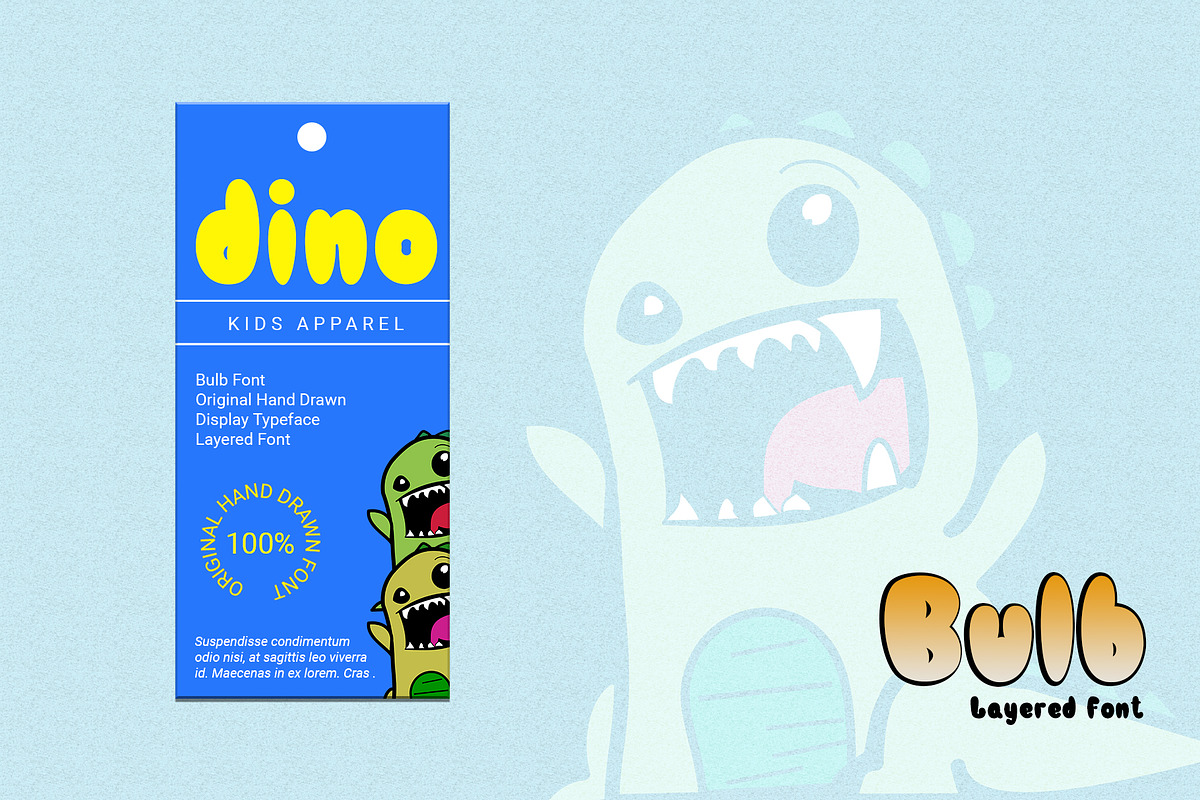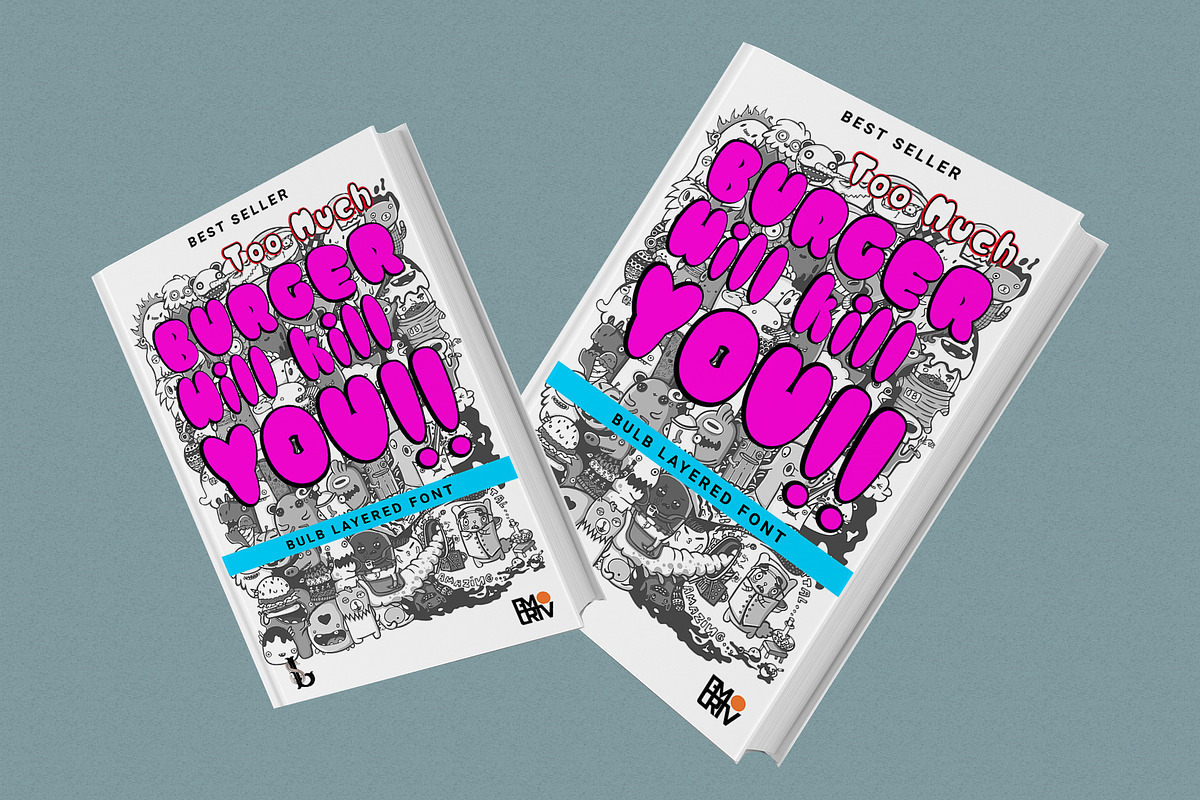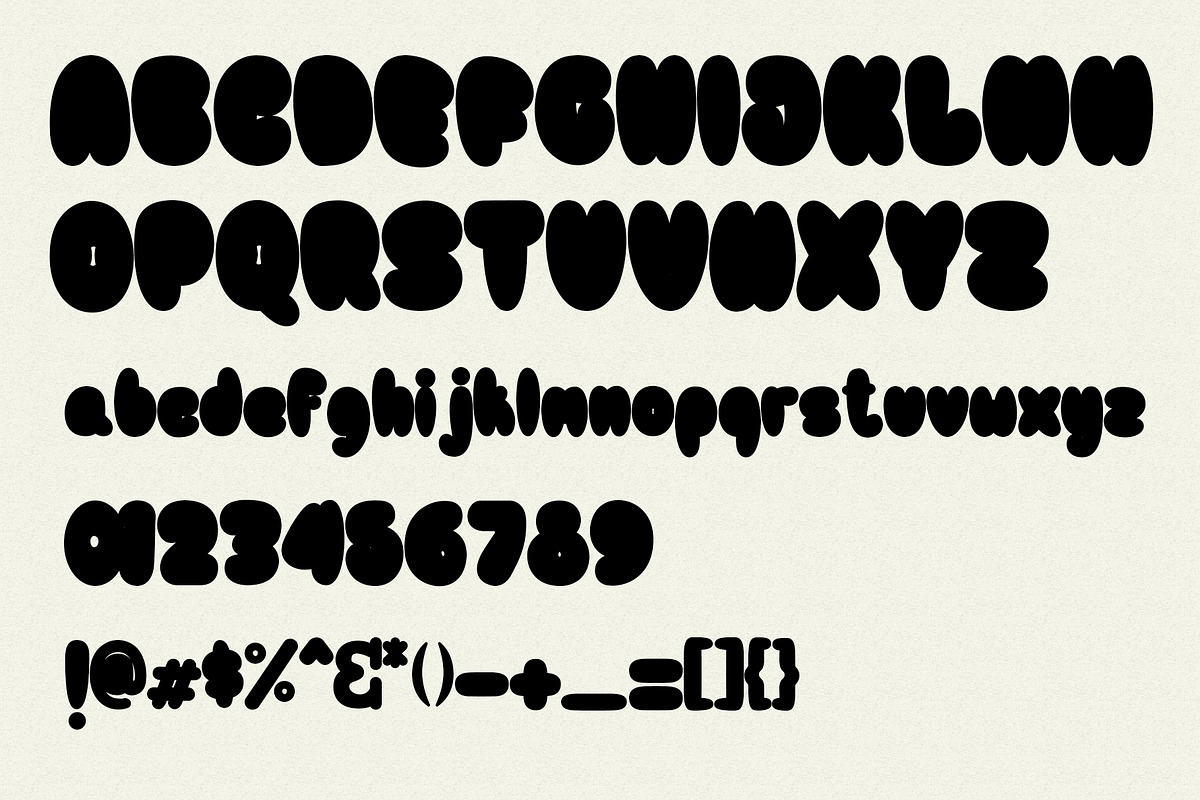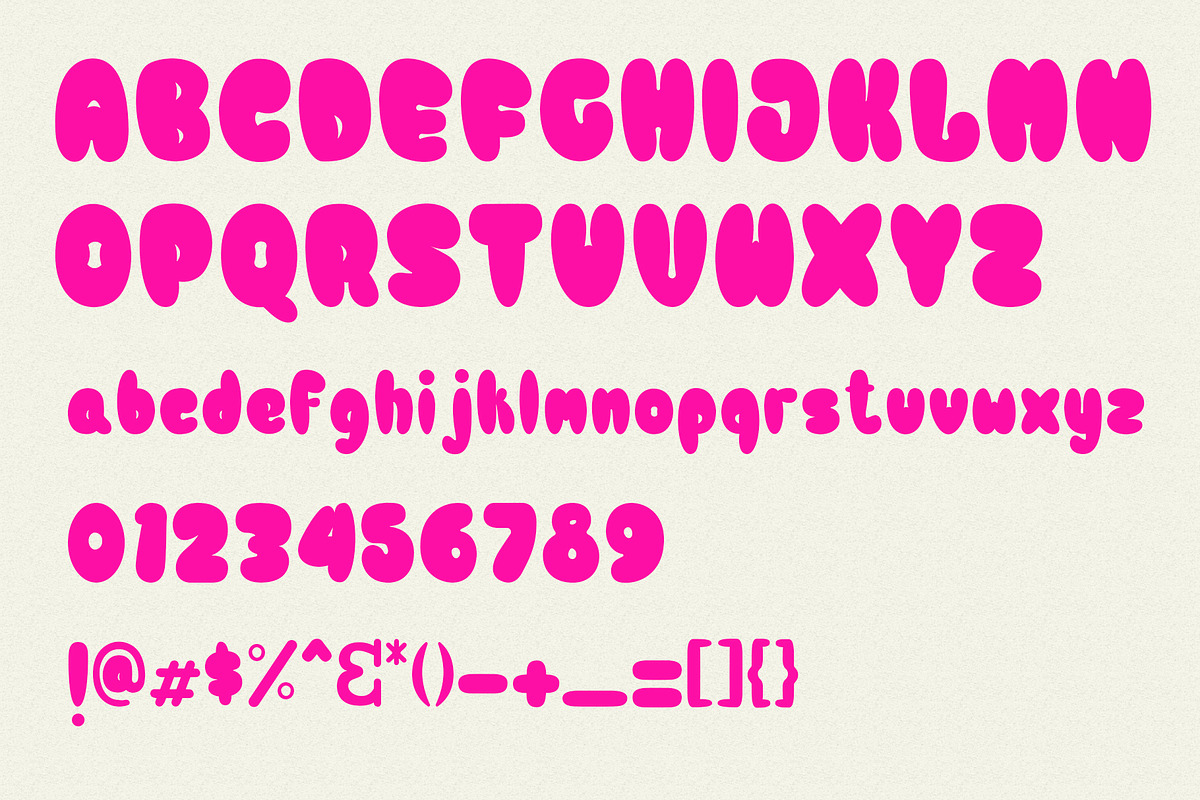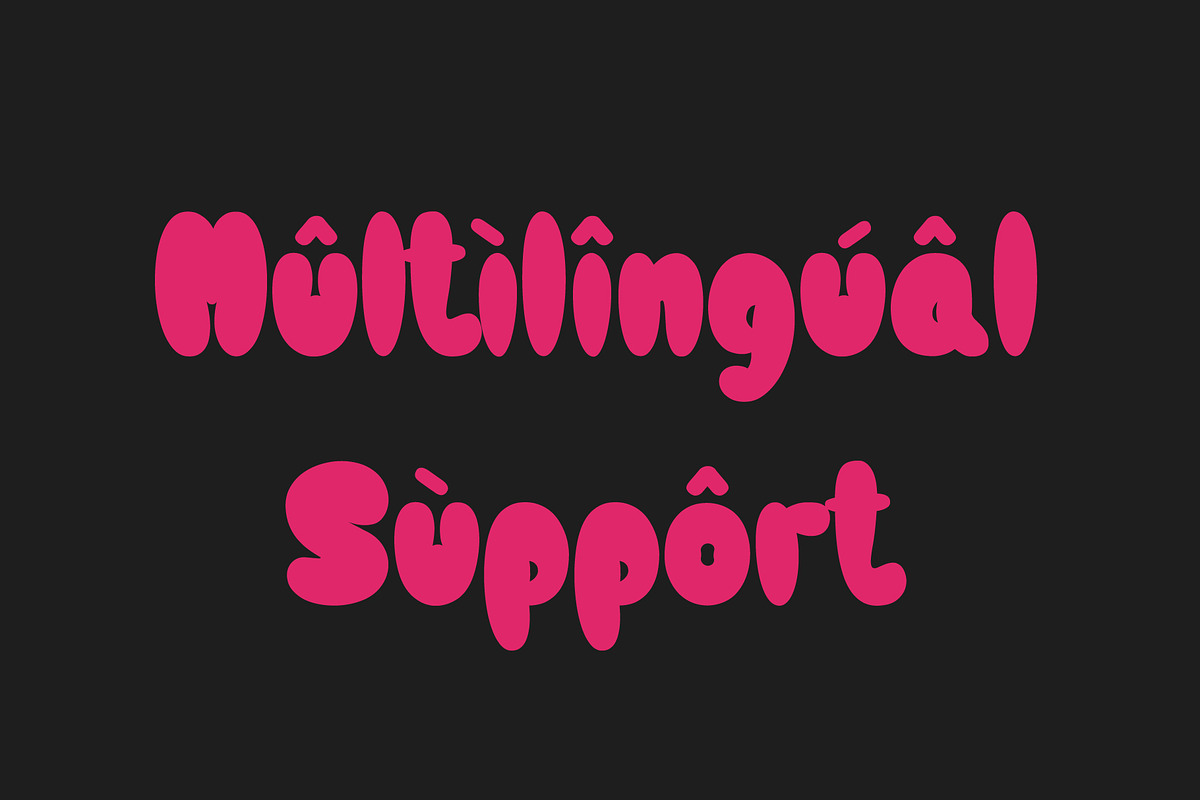
Bulb Layered Font
This pair was inspired by the kids comic poster design that i saw on some coffee shop, It was crafted by hand specially to add natural handmade feeling in its brand identity than i make it clean with pentool.
Opentype features Bulb font has 170 character set Bulb Font is very good looking in logo, labels, t-shirt prints, product packaging, invitations, advertising and others.
Multilingual support (Western European characters).
This fonts works with folowing languages: Afrikaans, Albanian, Asu, Basque, Bemba, Bena, Chiga, Cornish, Danish, English, Estonian, Filipino, Finnish, French, Friulian, Galician, Gusii, Indonesian, Irish, Italian, Kabuverdianu, Kalenjin, Kinyarwanda, Low German, Luo, Luxembourgish, Luyia, Machame, Makhuwa-Meetto, Makonde, Malagasy, Malay, Manx, Morisyen, North Ndebele, Norwegian Bokmål, Norwegian Nynorsk, Nyankole, Oromo, Portuguese, Romansh, Rombo, Rundi, Rwa, Samburu, Sango, Sangu, Scottish Gaelic, Sena, Shambala, Shona, Soga, Somali, Spanish, Swahili, Swedish, Swiss German, Taita, Teso, Vunjo, Zulu
Bulb Layered Font by LetterStock fits naturally into Branding, posters, packaging, typography.